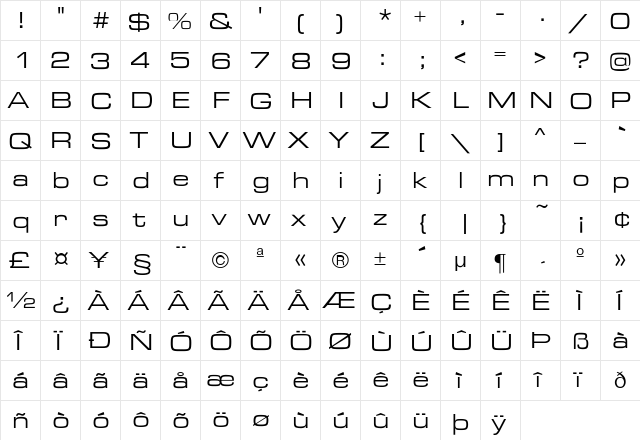
EurostileExtended-Roman-DTC Regular
Design Context for EurostileExtended-Roman-DTC Typeface
EurostileExtended-Roman-DTC takes a measured approach to typography — its balanced proportions and neutral character make it a reliable workhorse for both digital and print work.